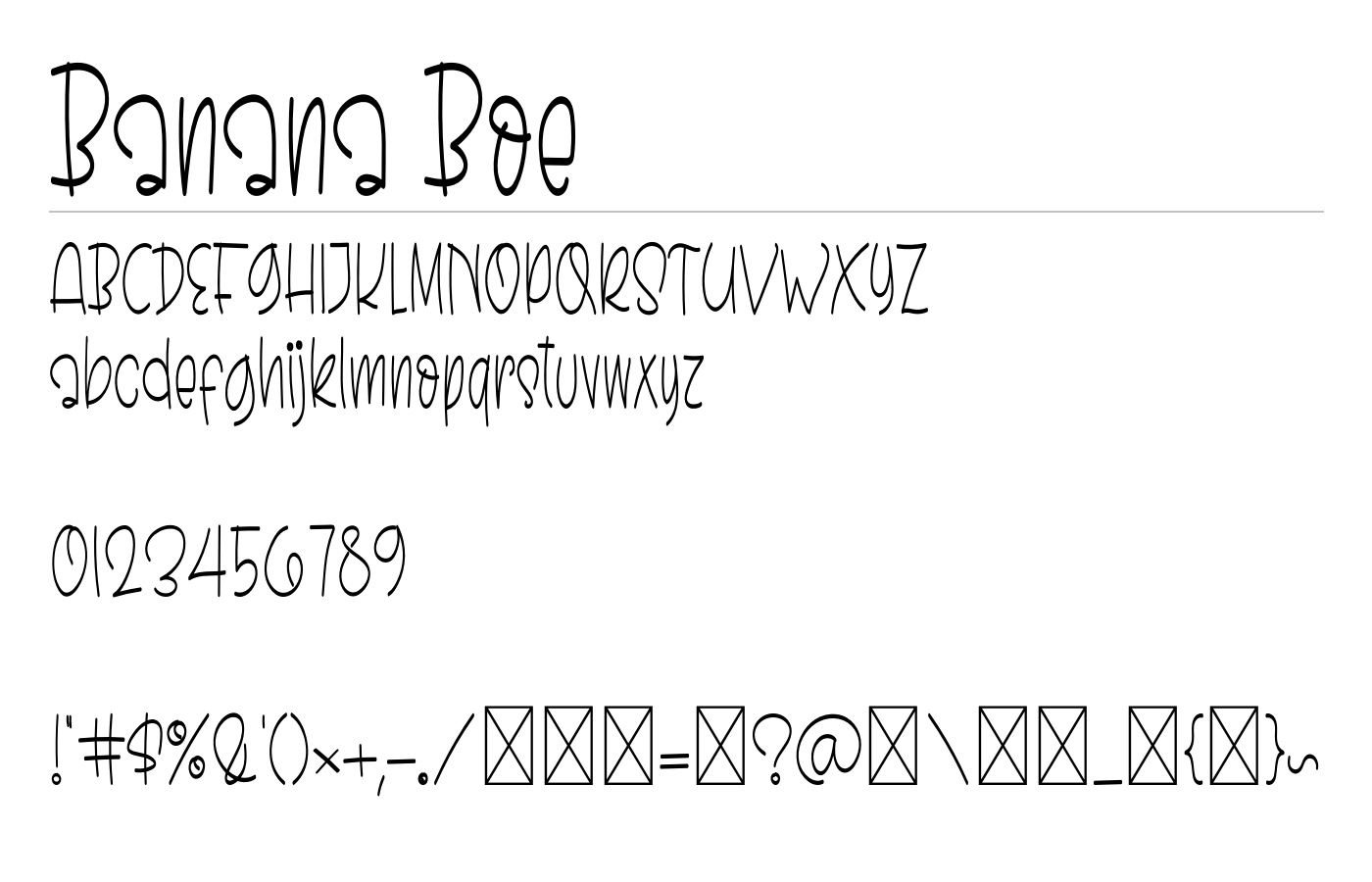
Banana Boe is a quirky, hand-drawn sans serif font with tall, narrow letterforms and playful curves, giving it a fun and casual vibe. Its thin strokes and whimsical details make it ideal for creative projects, children's designs, or informal branding that desires a friendly, approachable feel. This font works best in headlines and logos where a touch of personality and lightheartedness is needed.
Banana Boe Font
About Banana Boe Font